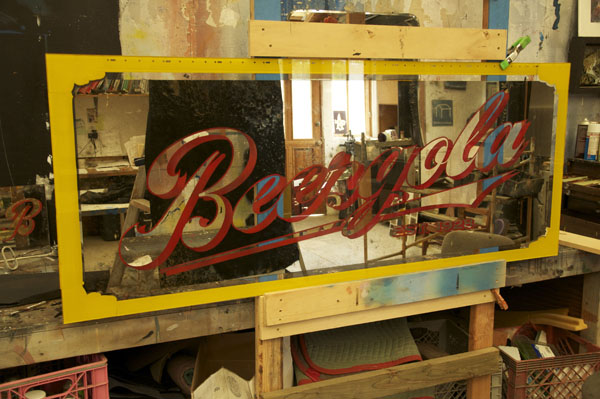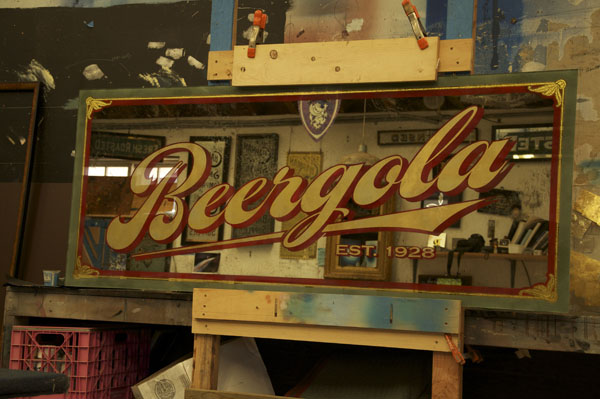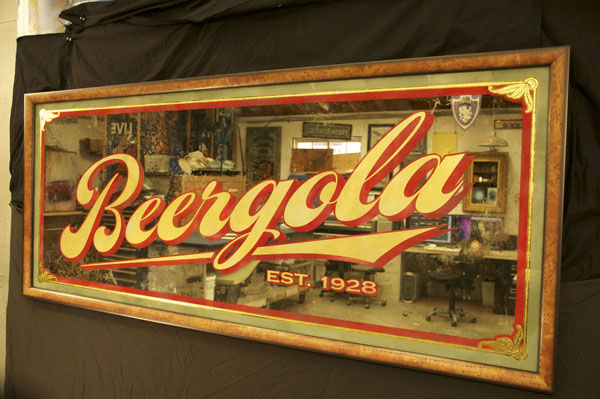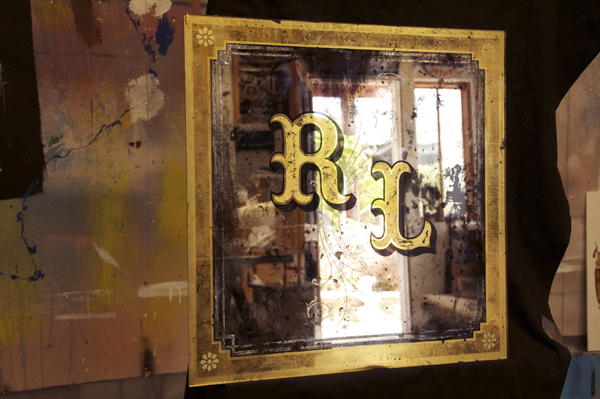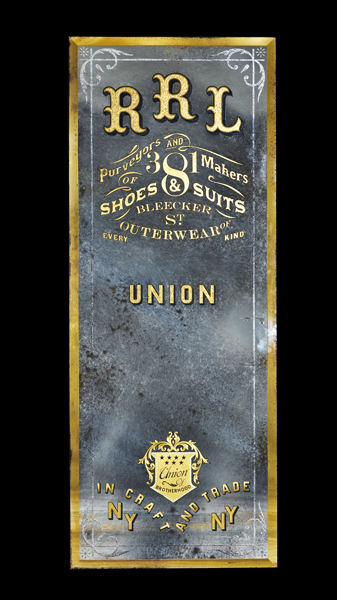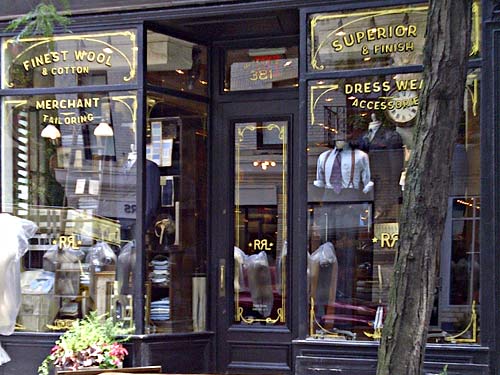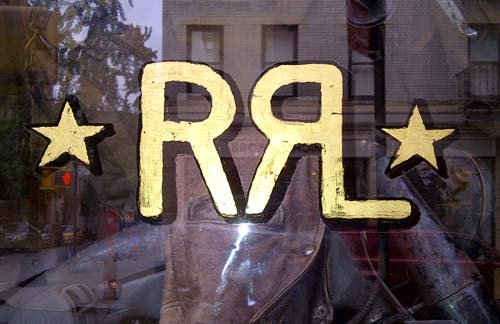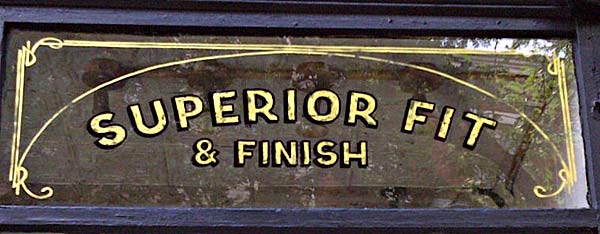
Newest glass sign
Here is the newest glass I'm working on.
Hi Rod I've heard of Beer'o'clock...but what is beergola???
My client bought an old road house from the prohibition . Beergola was what it's always been called.
Here s the sign finished and ready to frame
Here it is all finished up and ready to deliver
Looks very nice Rod,I like the colour shade to the border. Customer should be more than pleased with this one.
That green is the dirtyist muted green you can imagine until you get it on the back side of the glass.
Just starting these two panels today.
Yes I do the antiquing right after the mirroring. I mirror differently for antiquing as well. Here's today's progress. I just happen to be able to get the masks today so I got started on the acid etching. Next will be the sandblasting for chipping.
Sorry I've been so busy with not much time to post the step by steps. Here is the finished sample.
Here is the first photo of the finished mirrors 33" x 88". Two tone gold leaf w/ angel gilding antique gold border.
Very nice work Roderick. Is this job for a client's business or home?
The mirrors are for two Ralph Lauren stores in New York City. Bob's working on all the onsite work. Show us some photos Bob !
Hey guys, I didnt get any real nice shots yet but heres a couple. Thanks for everything Rod! I had to distress the leaf . Its all glass gilded in reverse on location. This job took 3 or 4 days to complete the gilding. Everything here was lettered up using pounces. No paint mask. They wanted a traditional hand lettered distressed feel. I rusted, painted and lettered up the metal signs with ny designer Dikayl Rimmasch. Cool Dude. Cool work!
Looks like it came out really cool Bob. Glad you were able to get all the on site work . I think the mirrors are going to look great with those signs.
You guy's have done a great job on these signs. Rod your antique signs looks very nice mate and your window work Bob looks old and authentic.
Will look great together..
Thank you Dave! Really appreciate your compliments! It means a lot. Rods mirrors are really on the mark! It was a real pleasure working on this project. I start the windows at the west broadway soho location in a couple of weeks.
Thanks Dave ! Hey Bob, I just got a call from Dykale ( The client) saying they loved the project and everything looked great. He said it was a "great team to work with". He's going to take more photos soon.